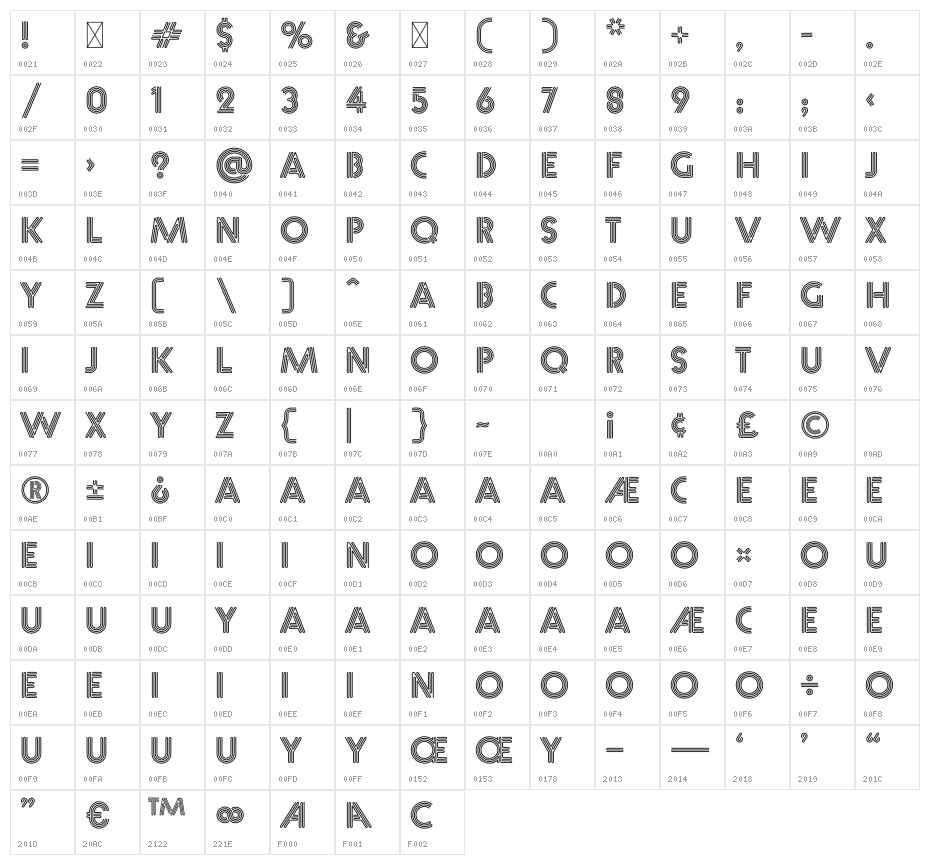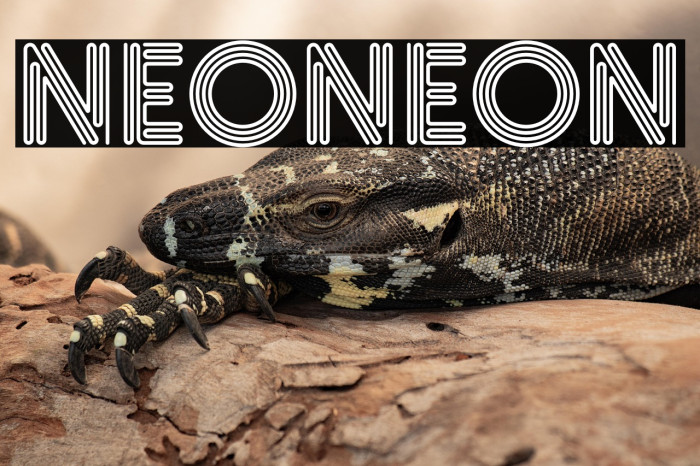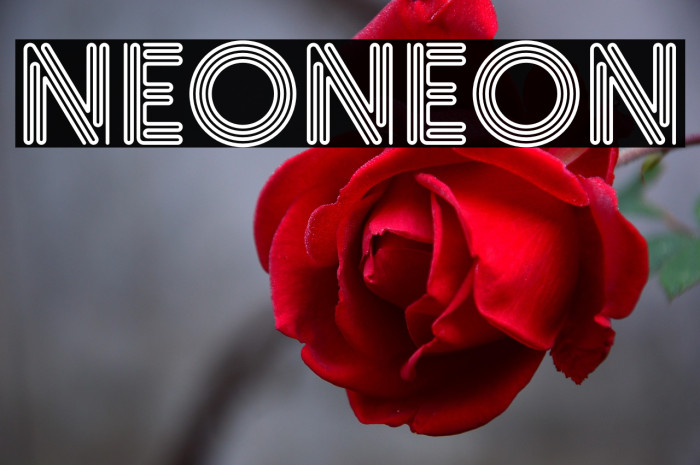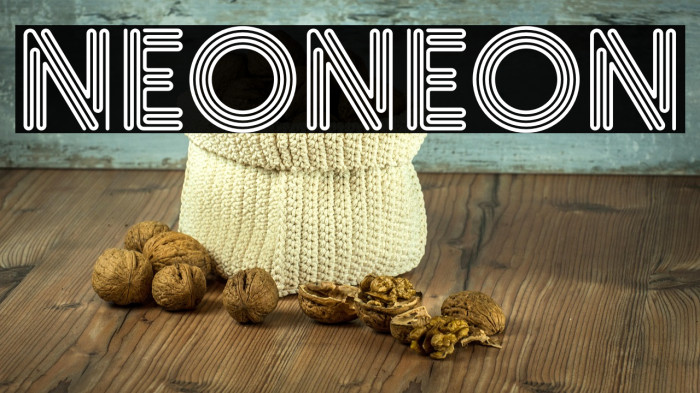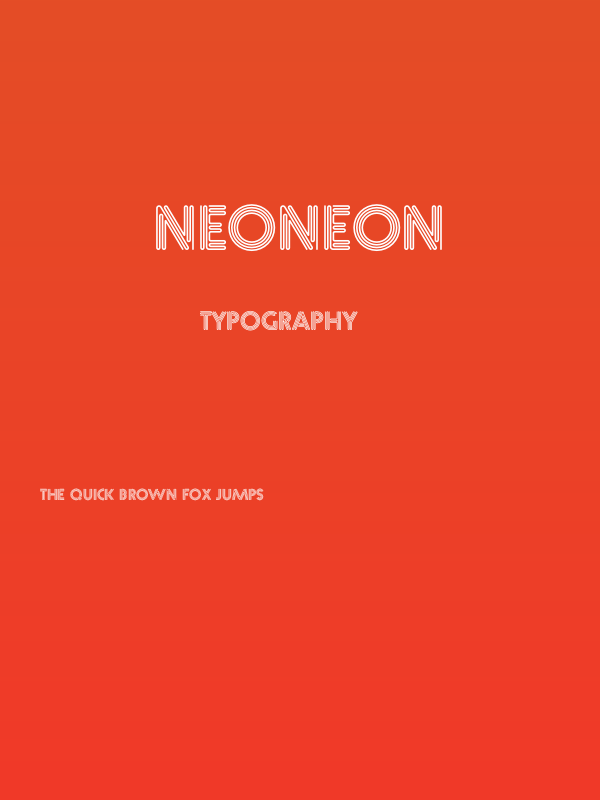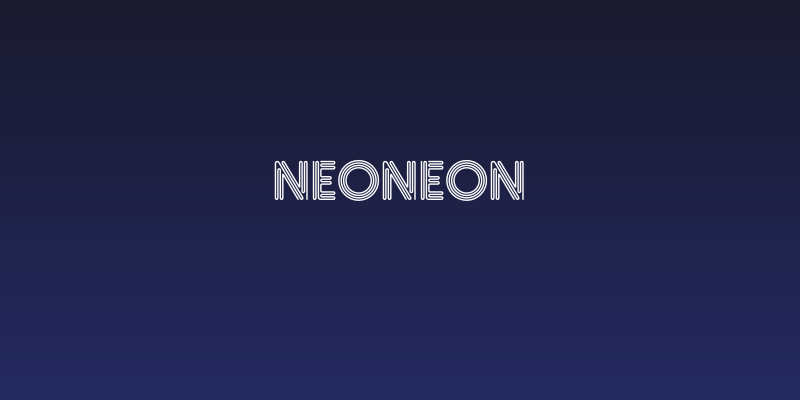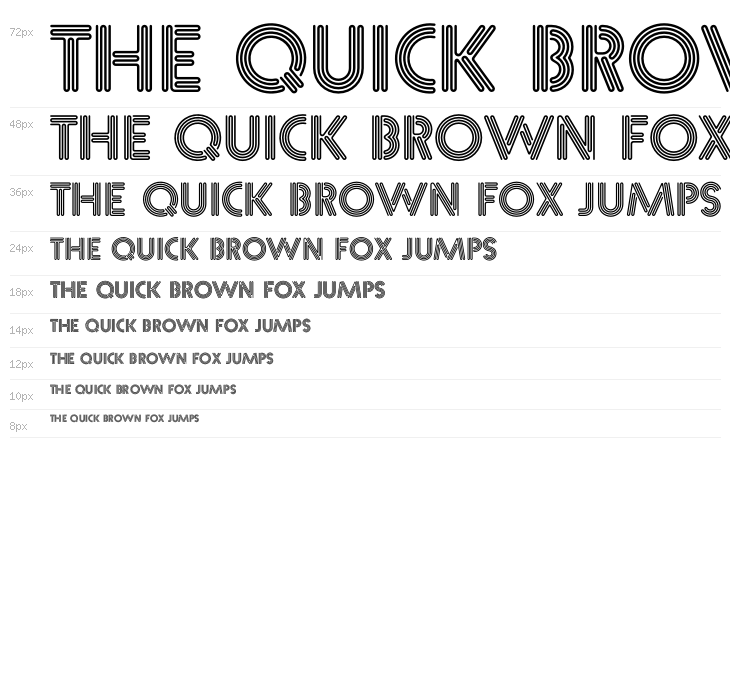
NeoNeon Font
NeoNeon Description
This font features a striking, multi-line design that gives each character a sense of depth and dimension. The letters are constructed with parallel lines that create a bold, geometric appearance, reminiscent of neon signs. The uppercase and lowercase letters maintain a consistent style, with clean, sharp angles and a modern aesthetic. The numbers and special characters follow the same design principles, ensuring uniformity across all glyphs. This font's unique style makes it highly suitable for eye-catching displays and creative projects.
| Proposed Projects | Ideal for neon-themed designs, modern posters, branding, and signage that require a standout, futuristic look. |